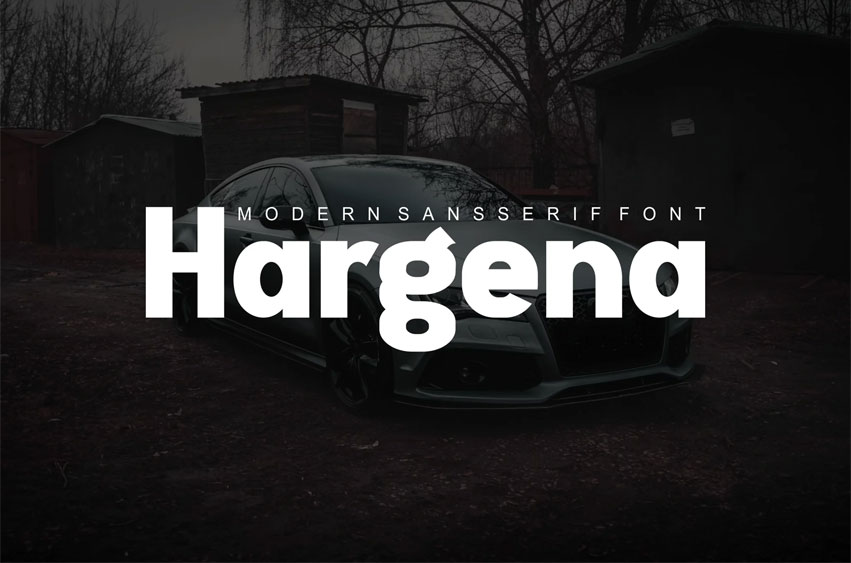
Hargena Font Modern Font is a bold and authentic display font. The font is suitable for any branding project like logo, t-shirt printing, esports, and many more. outstanding in a wide range of contexts.